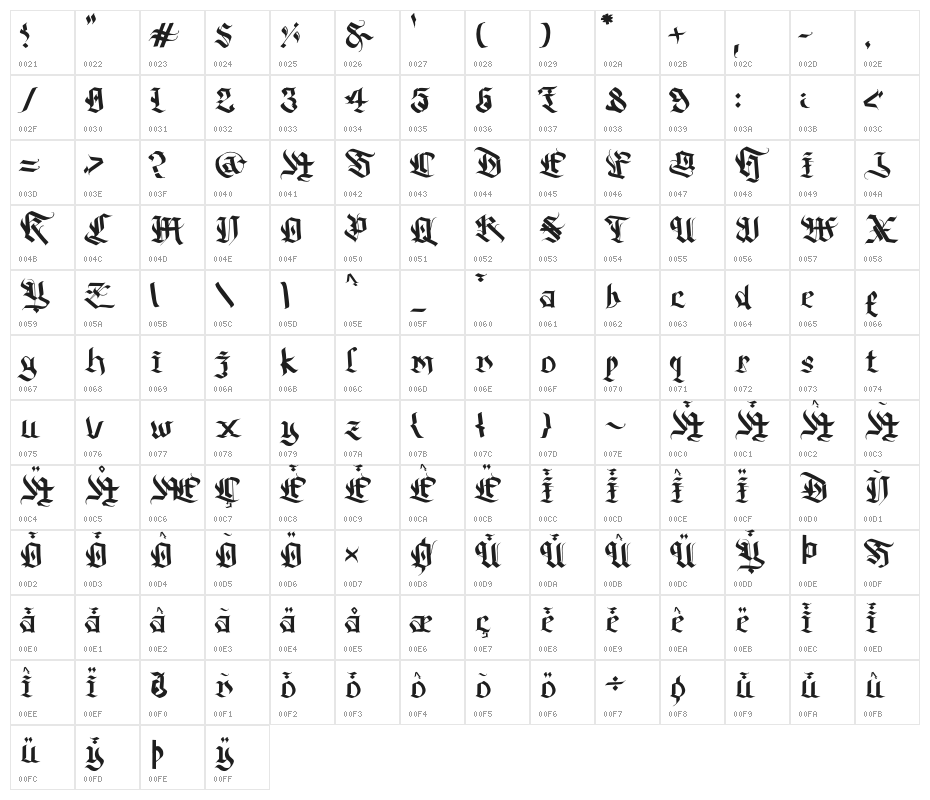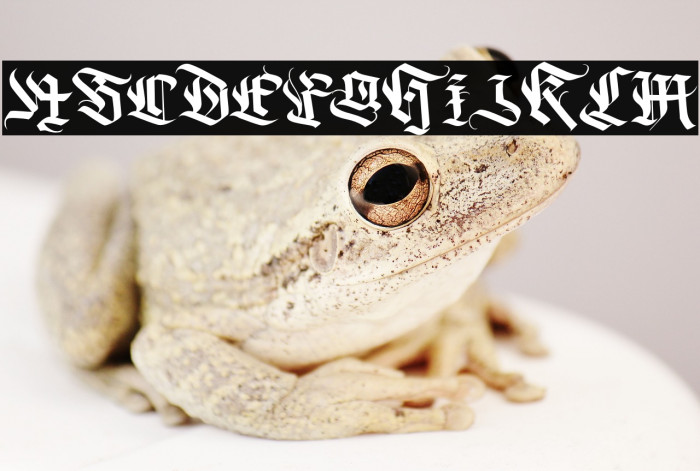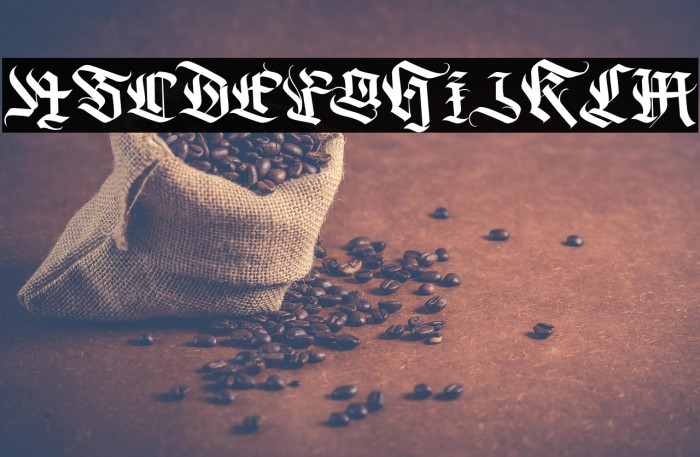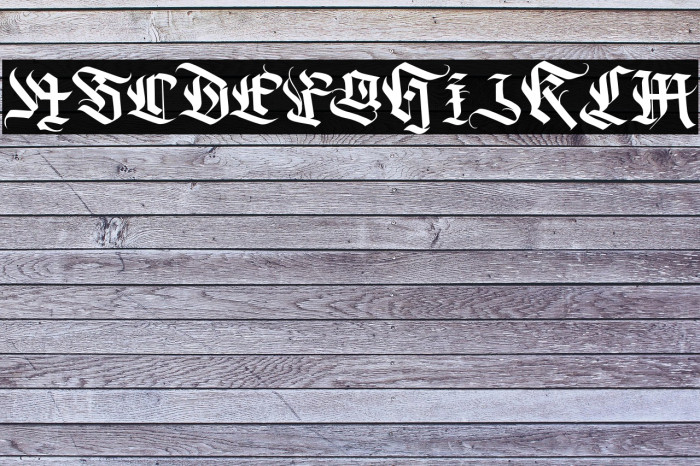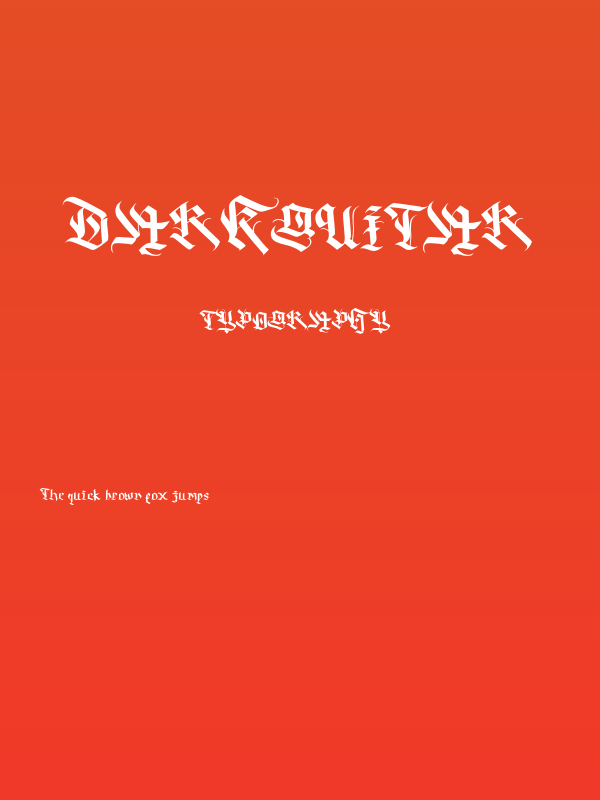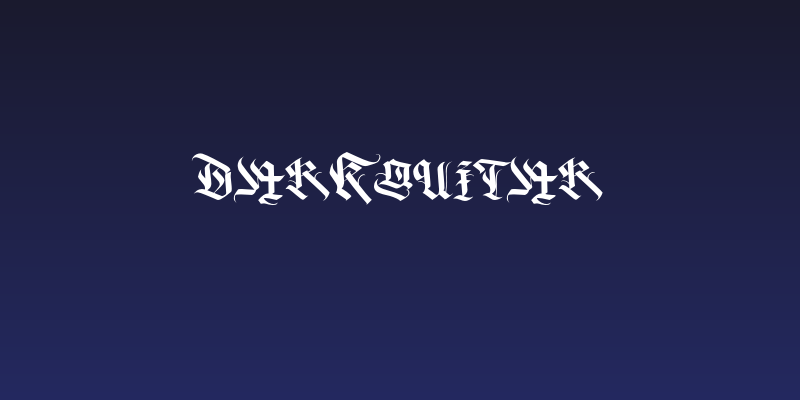
DarkGuitar Font
DarkGuitar Description
This font exhibits a bold and dramatic style, reminiscent of traditional blackletter calligraphy. The characters are intricately designed with sharp, angular strokes and pronounced serifs, giving it a gothic and medieval appearance. The uppercase letters are particularly ornate, featuring elaborate flourishes and extensions. The lowercase letters maintain a consistent style, with a slightly more subdued decoration. Numbers and special characters follow the same aesthetic, ensuring a cohesive look across all elements. The overall impression is one of strength and elegance, suitable for projects requiring a historical or formal touch.
| Overall Style | Gothic, Medieval, Dramatic |
| Proposed Projects | Ideal for use in historical documents, gothic-themed designs, album covers, posters, and branding that requires a dramatic and formal touch. |